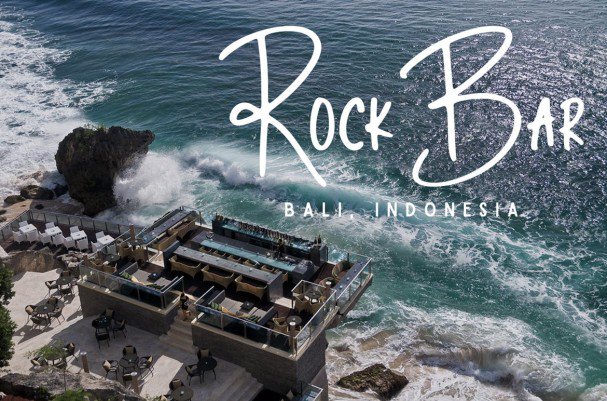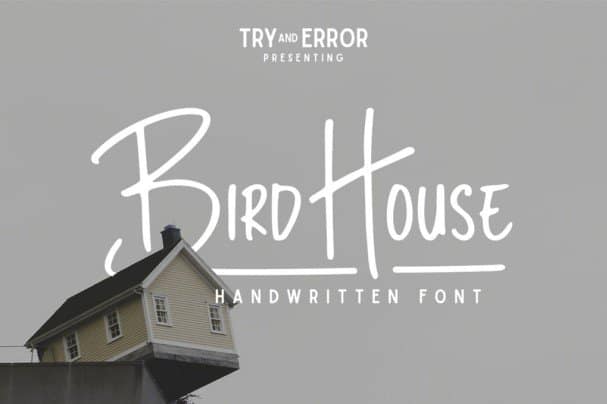
Bird House Font
Here is the Bird House Font that is famous for its Script typeface. This is one of the most used typefaces in movies and it is present inside google fonts. It has grown to be as fast as created for the number one writer inside the dust much like the tesla font. And this quantity has stepped forward every day with modern-day-day.
The number one is a font that is created with the useful content material of the use of this font. He took the idea from the start. This font is used for t-shirt printing and brand designing abilities. Bird House Font Free Each form of typefaces has a qanelas soft font.
So, do now not make any skip for using it for your duties. It has a vintage appearance with a gift-day twist and all-caps typesetting. It’s far a lora font. That can be downloaded for the superb content material look.
This font in growing a photo, fee models, and in every unique designing